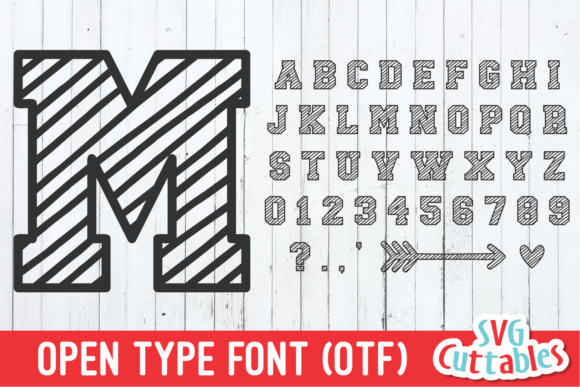
Introducing JP Scribble Font, the perfect slab serif font designed by SVG Cuttables. Get ready to unleash your creativity with this bold and assertive font that is sure to captivate and inspire. Whether you're a professional designer, a craft enthusiast, or a Dance Mom looking to add a touch of flair to your projects, this font is a game-changer.
JP Scribble Font is not your ordinary font. It's a powerful tool that elevates your designs and gives them a unique personality. Its slab serif style exudes confidence and makes a bold statement. With its strong and eye-catching appearance, this font will make your creations stand out from the crowd.
Crafters, rejoice! JP Scribble Font is your ultimate companion for all your DIY projects. From personalized gifts to home decor, this font adds that extra touch of creativity and charm. Its versatility knows no bounds, making it suitable for a wide range of crafts. Let your imagination run wild as you effortlessly create beautiful and professional-looking designs.
Digital designers, get ready to take your creations to the next level. JP Scribble Font brings a fresh and modern twist to your digital designs. Whether you're designing logos, websites, or social media graphics, this font will make your work shine. Its edgy and distinctive style will leave a lasting impression on your audience, making them stop and take notice.
Presentations just got a whole lot more exciting with JP Scribble Font. Say goodbye to boring and predictable slides. This font injects energy and excitement into your presentations, making them visually appealing and memorable. Grab your audience's attention from the moment you start speaking and leave a lasting impact with this captivating font.
For all the Dance Moms out there, JP Scribble Font is your secret weapon. Add a touch of elegance and sophistication to your dance recital invitations, programs, and costumes. This font embodies the grace and power of dance, making it the perfect choice for all your dance-related projects. Let your creativity flow as you create stunning designs that will impress everyone.
In conclusion, JP Scribble Font is more than just a font – it's a creative powerhouse that unlocks endless possibilities. With its bold and assertive slab serif style, it's the perfect choice for crafters, digital designers, presenters, and Dance Moms alike. Step up your design game and let JP Scribble Font be your go-to font for all occasions.